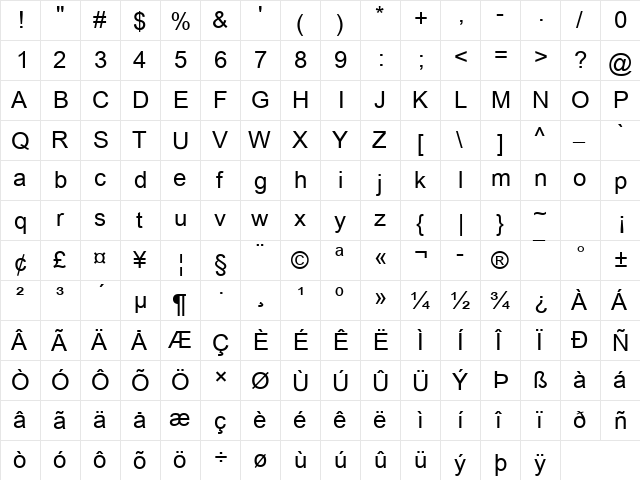
DokChampa Regular
Design Context for DokChampa Typeface
DokChampa is a composed and adaptable typeface that performs quietly and consistently across a wide range of design contexts.
Pro Tip: Use DokChampa in both headline and body roles to test its range before committing to a single application.